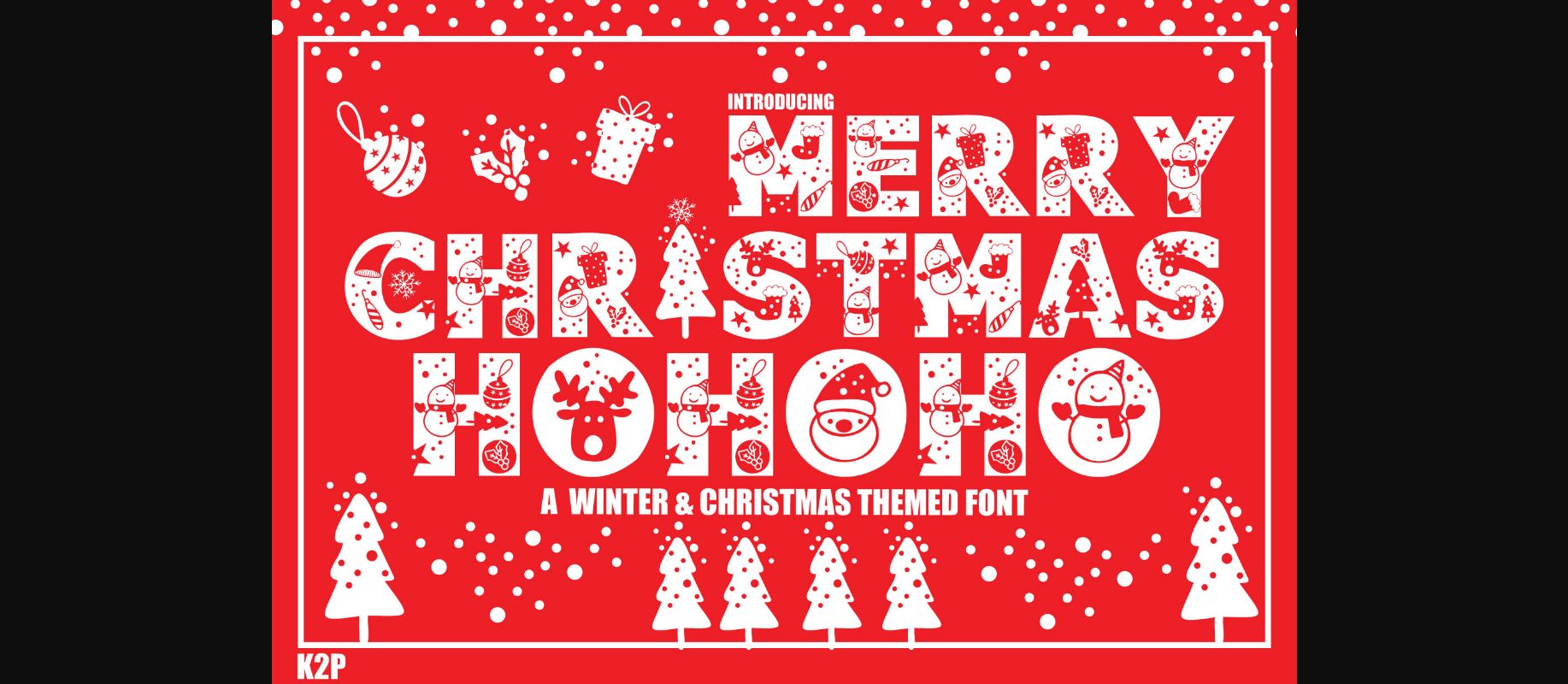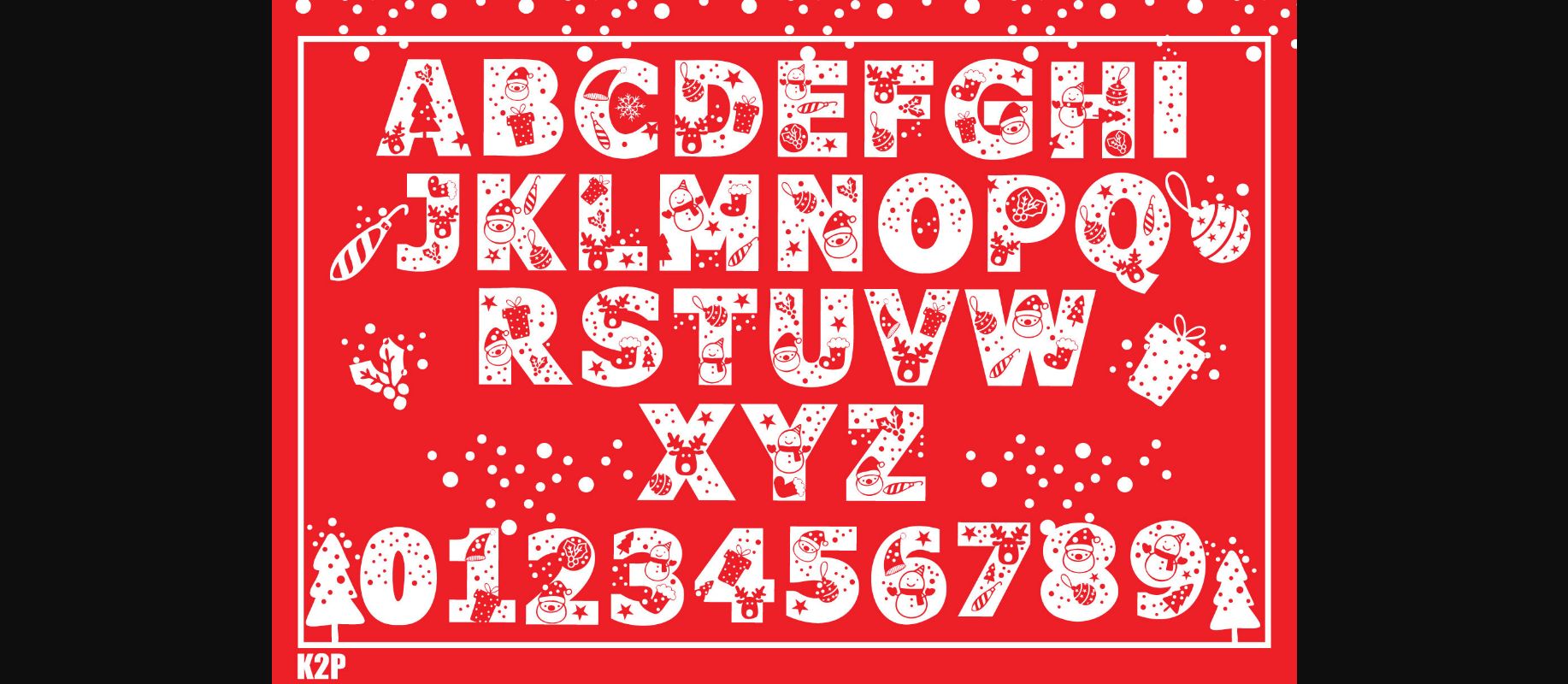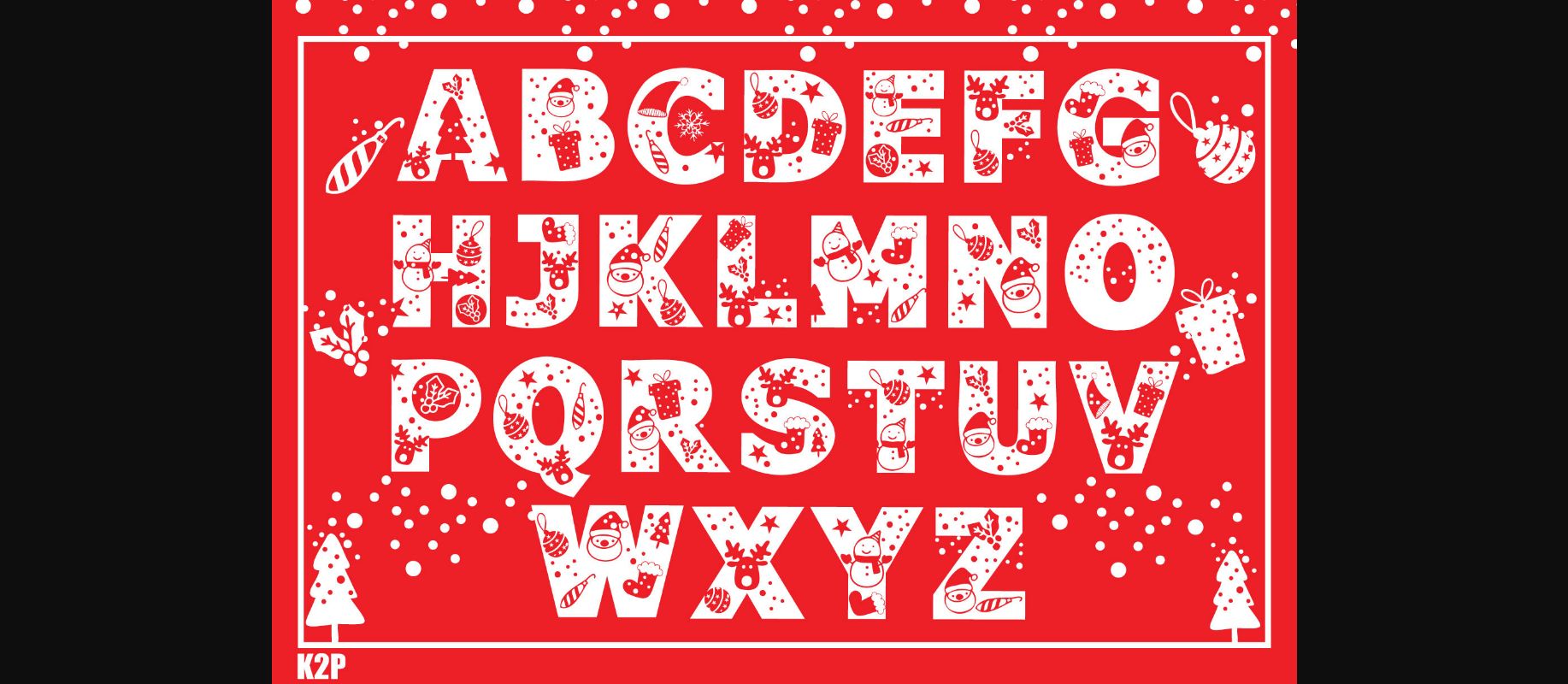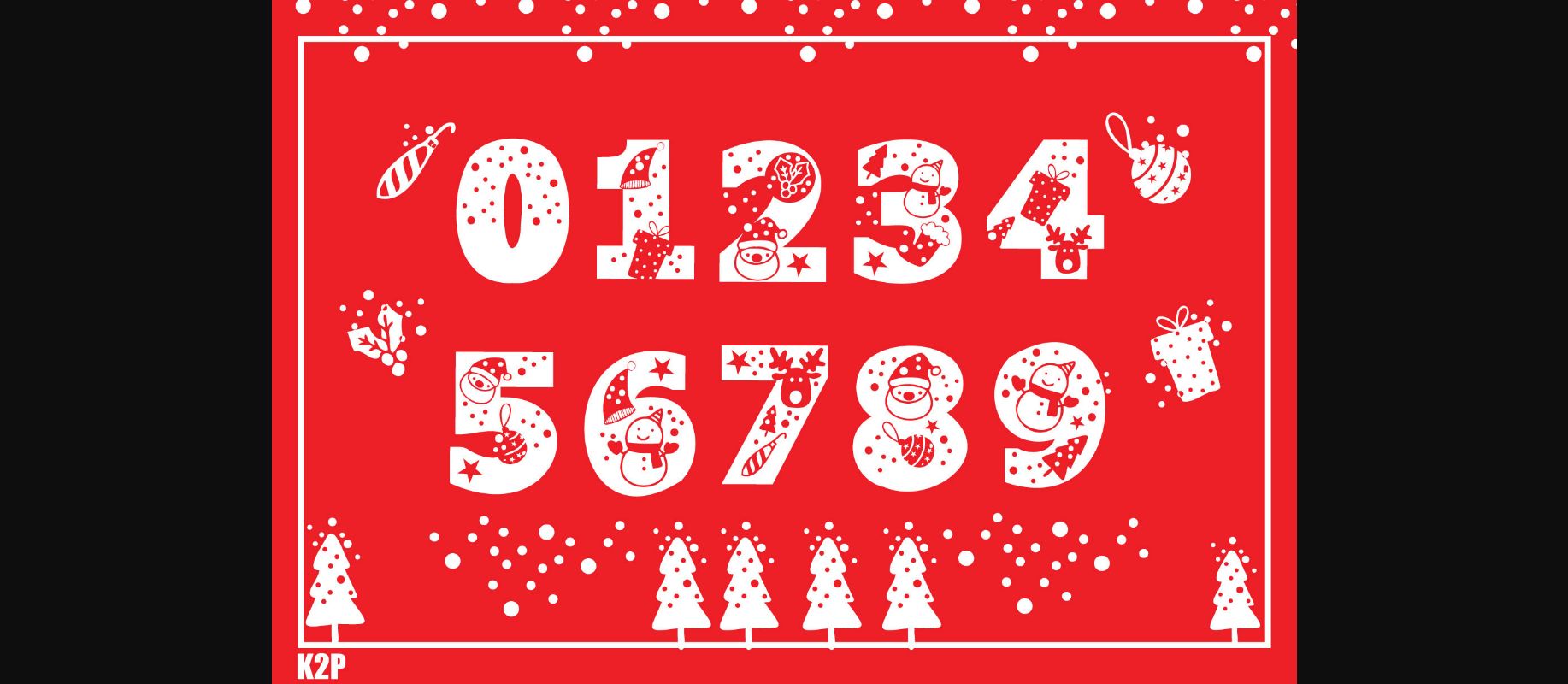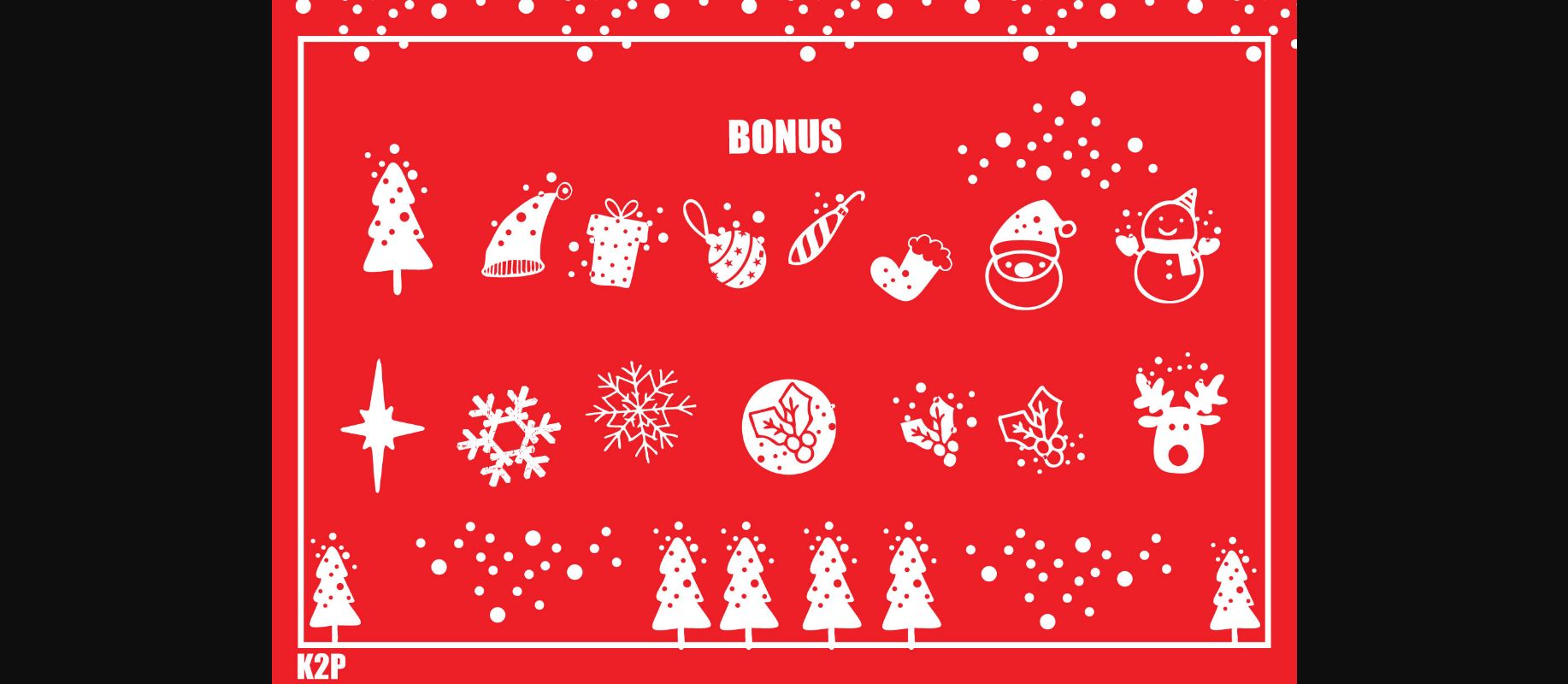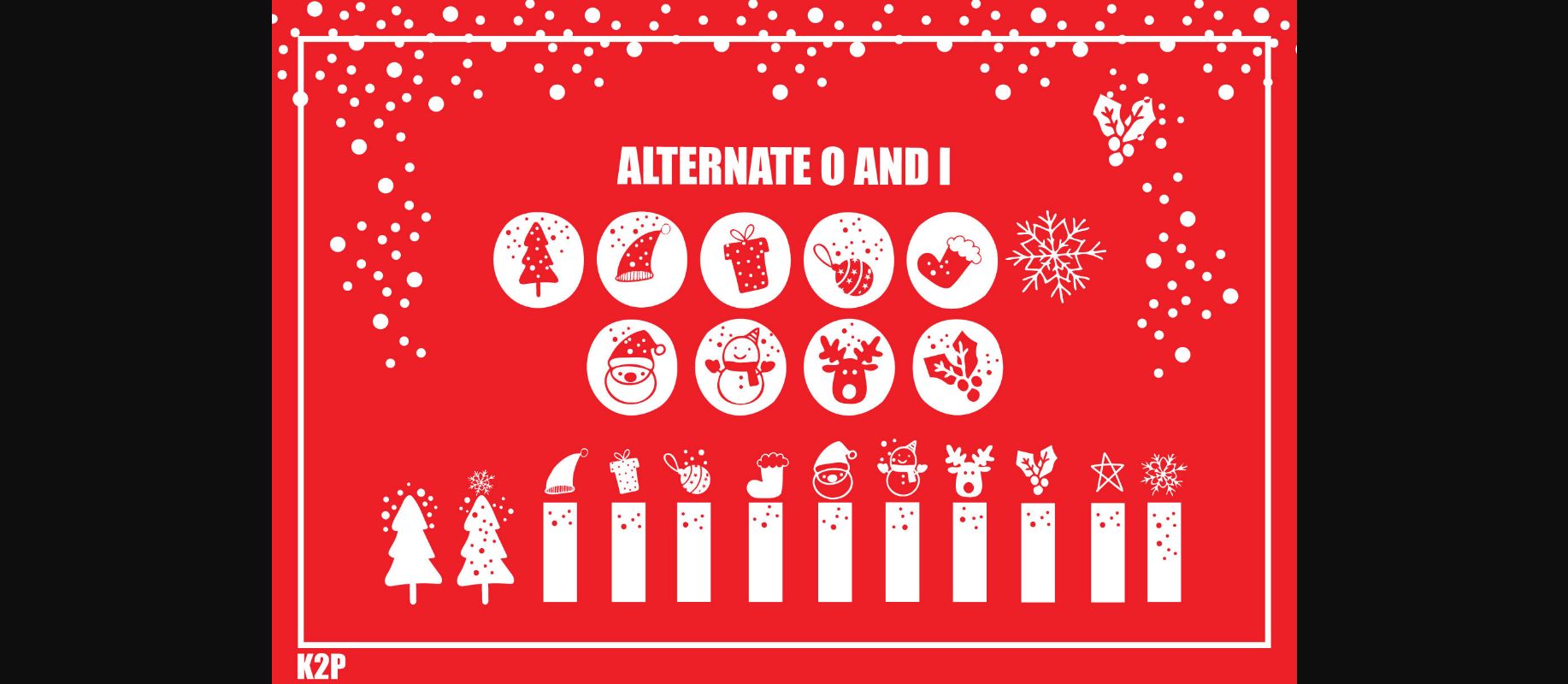
About Merry Christmas Ho Ho Ho Font
Merry Christmas Ho Ho Ho is a thick lettered and incredibly unique decorative font. It can be used for various design ideas, particularly those related to the Christmas holiday. This font is PUA encoded which means you can access all of the glyphs and swashes with ease.